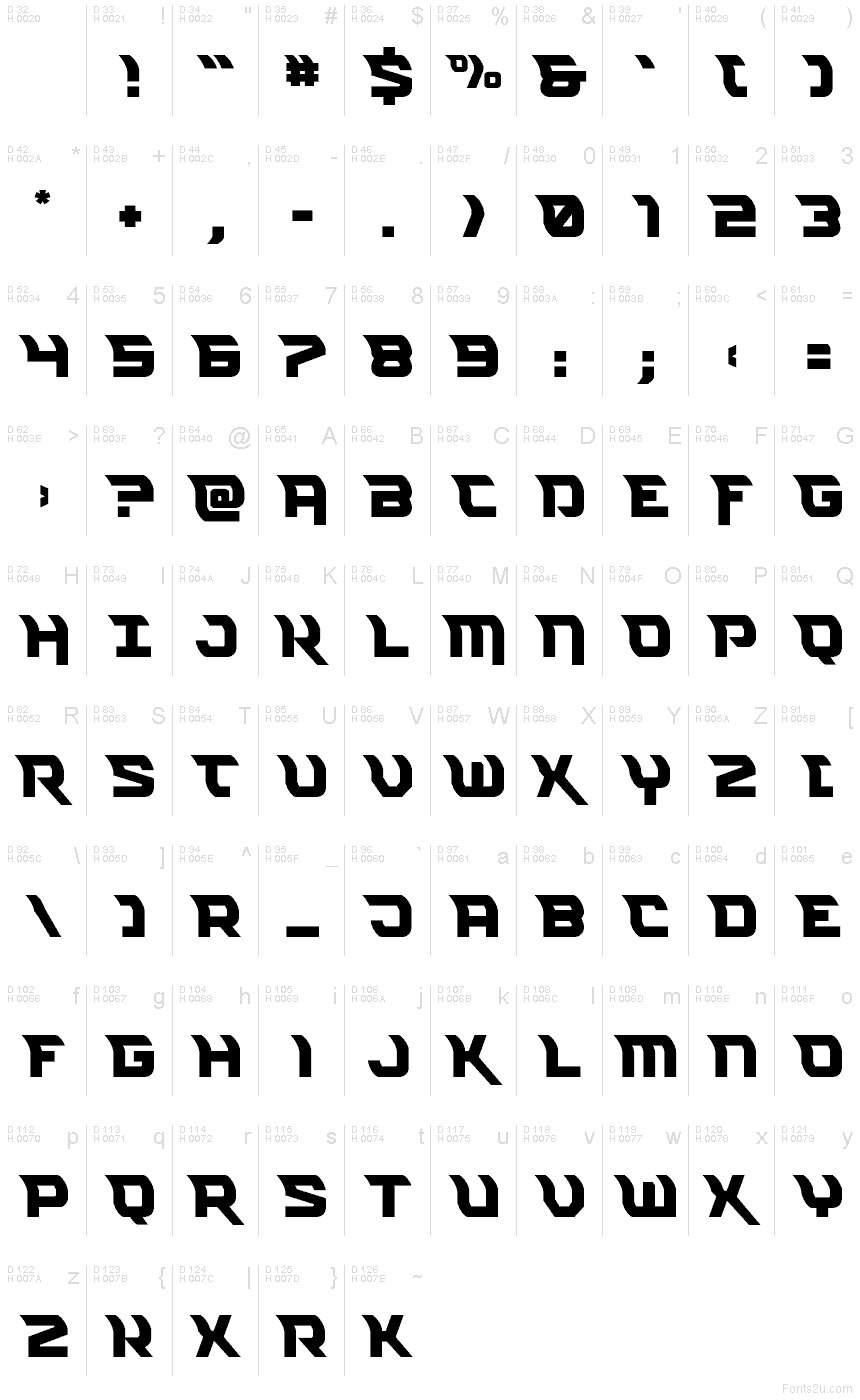
Renegent Straight
Renegent Straight font by Iconian Fonts is an angular display font that combines geometric shapes with an expanded width and bold weight. The typeface exhibits a futuristic style with structured, sharp edges and modern aesthetics. It has a technological appeal that allows it to be used in various sci-fi design contexts.